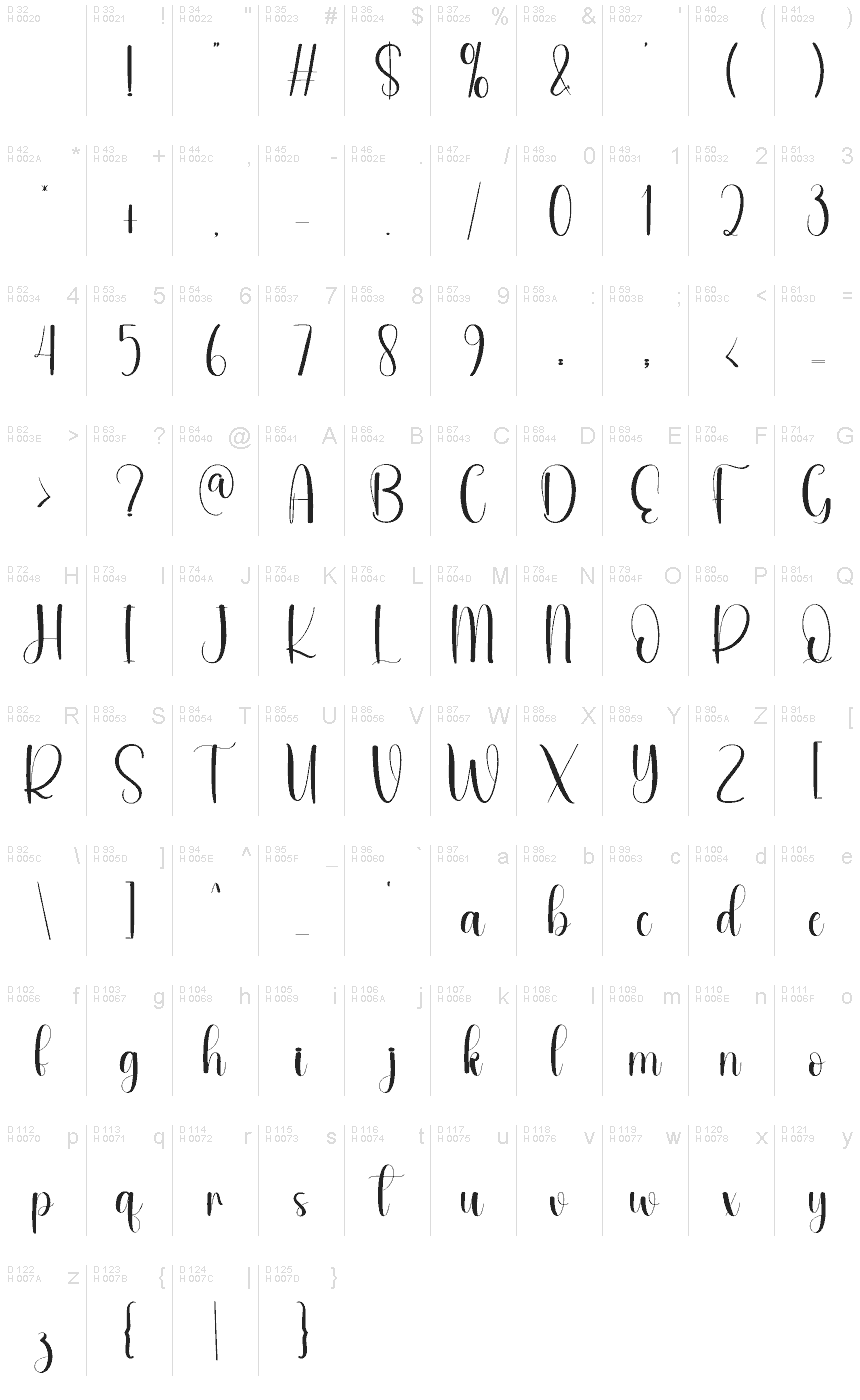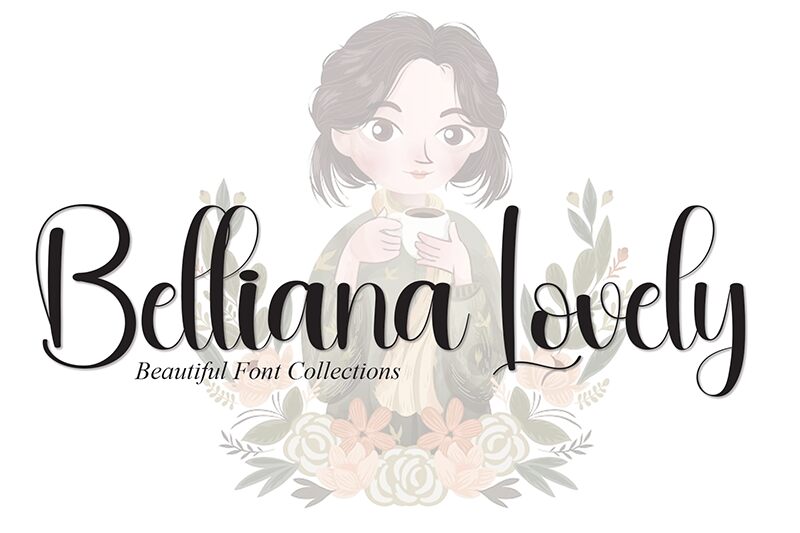
Belliana Lovely
Belliana Lovely font by Andi Moz is an elegant and expressive calligraphy font that captures artistic flair with its romantic undertones. Its flowing, graceful lines project a sophisticated vibe, which delights the eyes in both personal and professional design arrangements.
Free to download and use, this graceful typeface will shine in creating wedding invitations, packaging designs, company logos and emblems, letterheads, greeting cards, digital signatures/branding watermarks on photos or artwork as well as advertisements of all types.